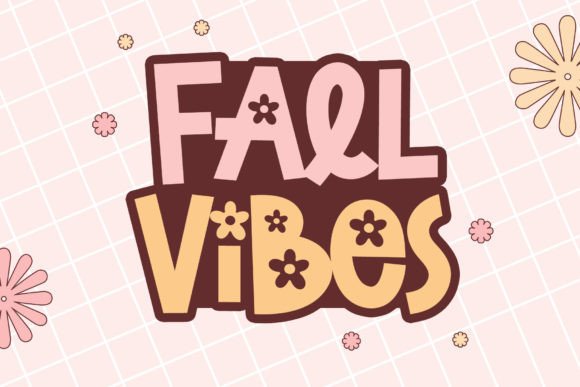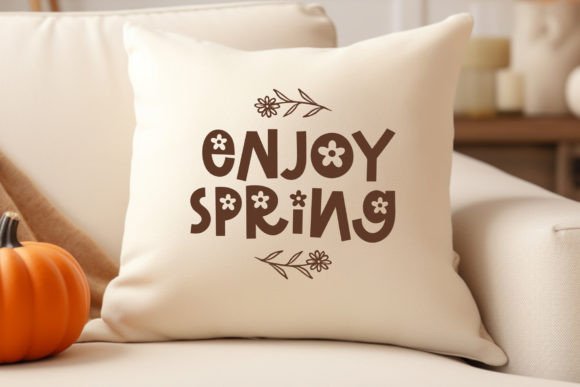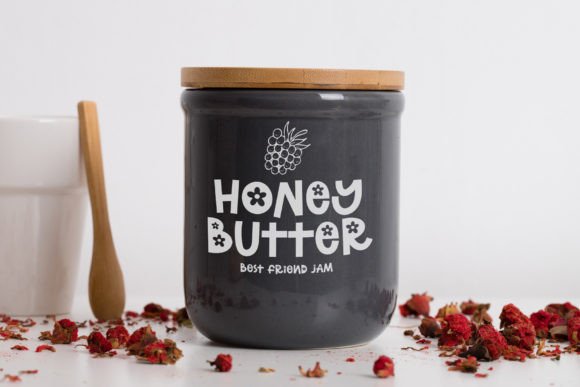
Flower Blossom Font
Flower Blossom is pretty display font with floral accent.This font is pretty font for design with cute style, such as holiday, summer, fall vibes, back to school, t-shirt design, crafting, sticker, and many more.